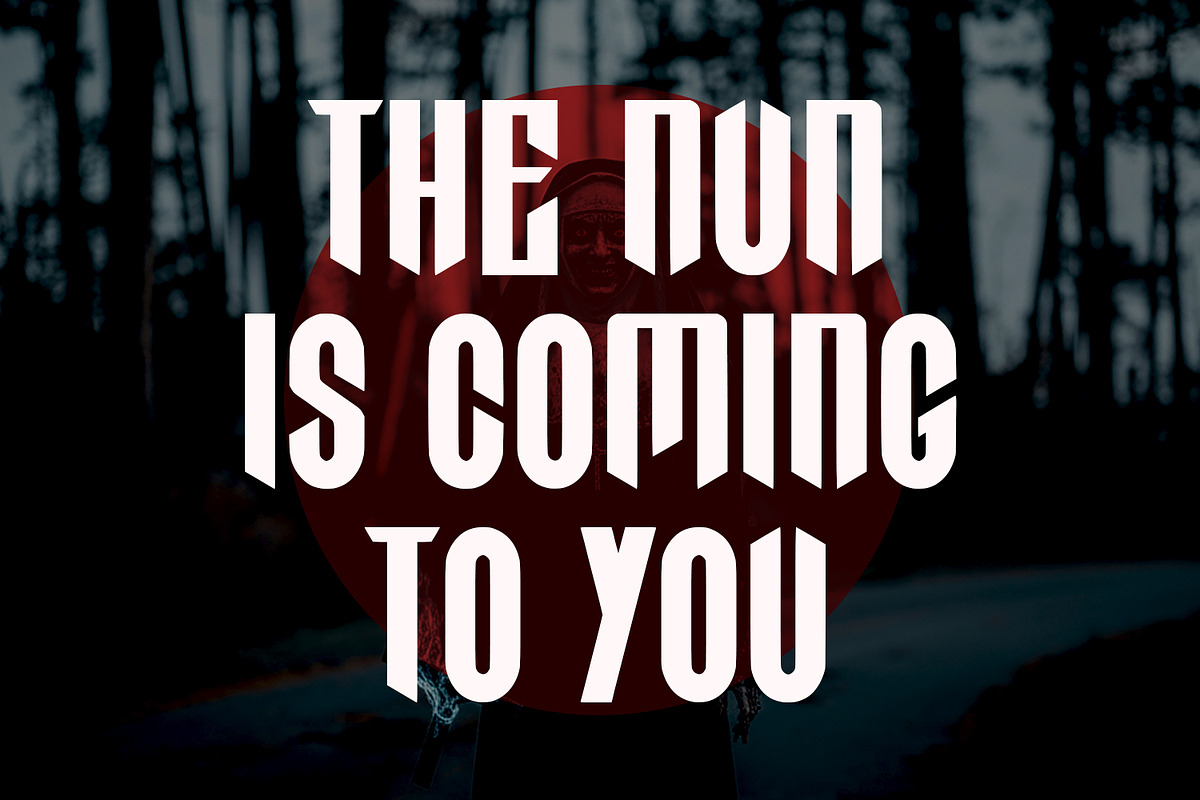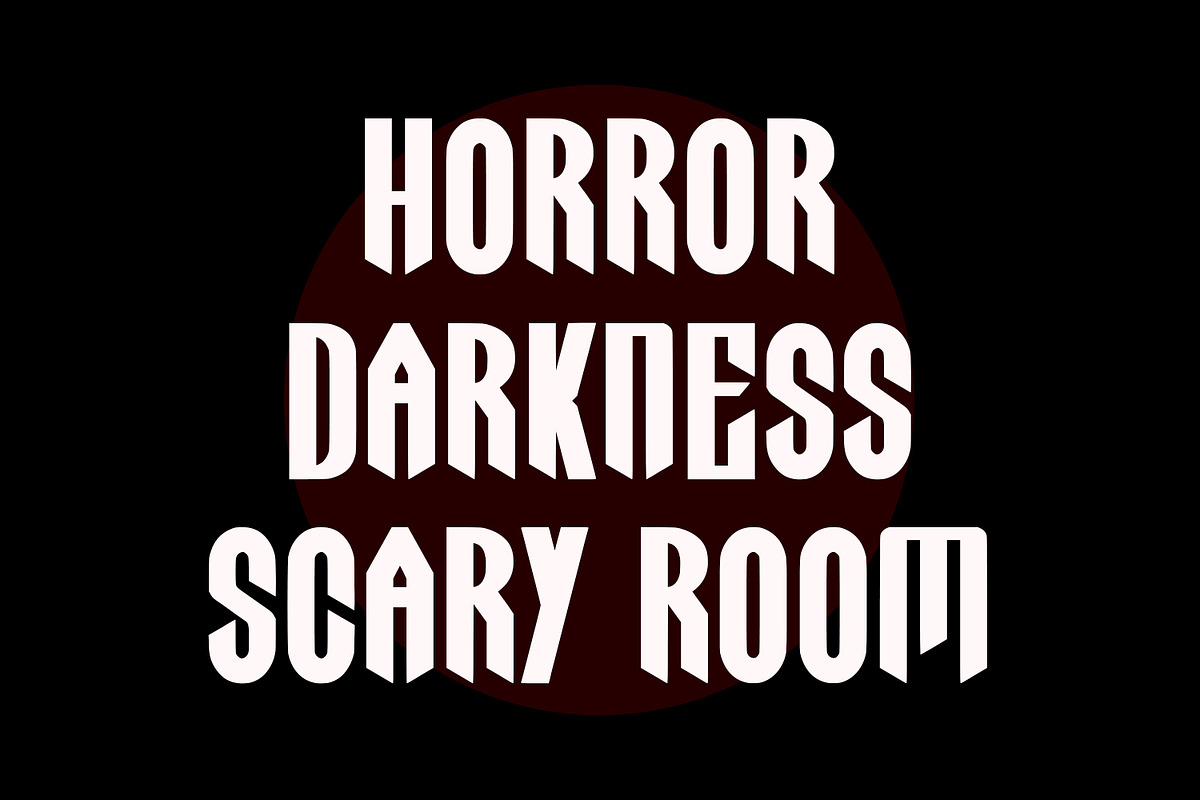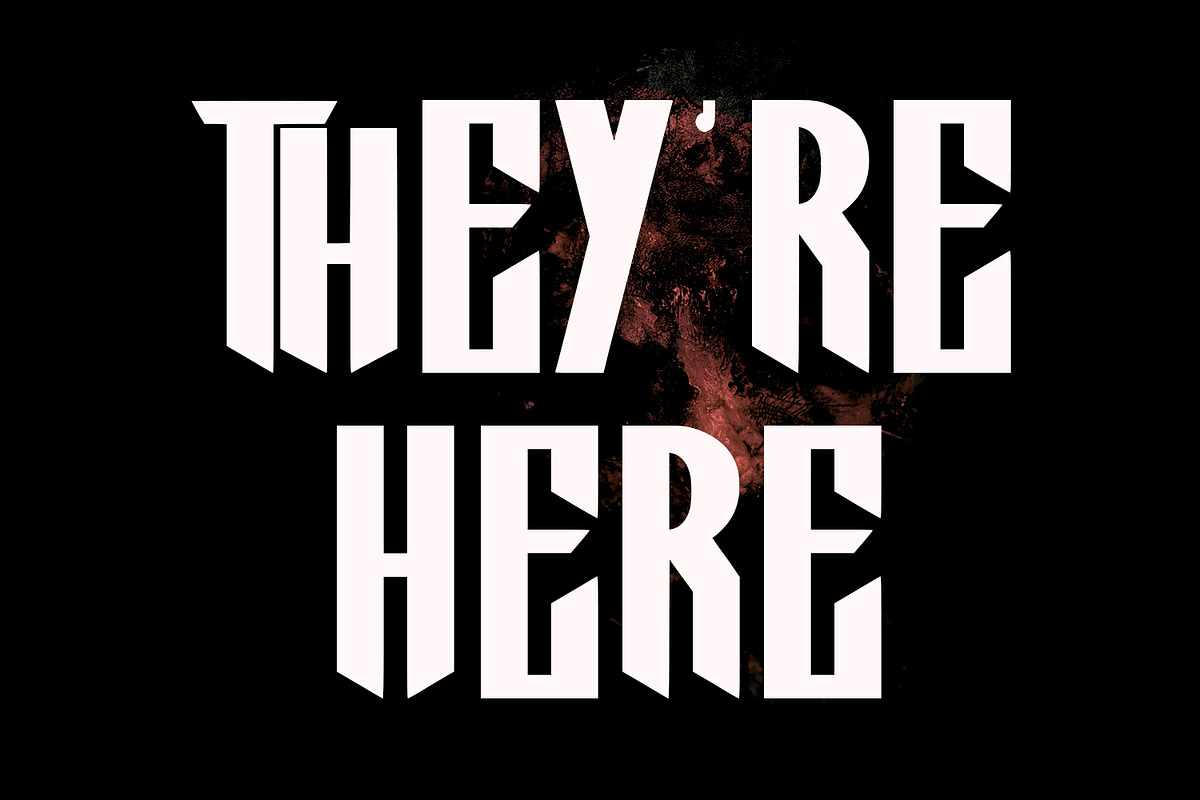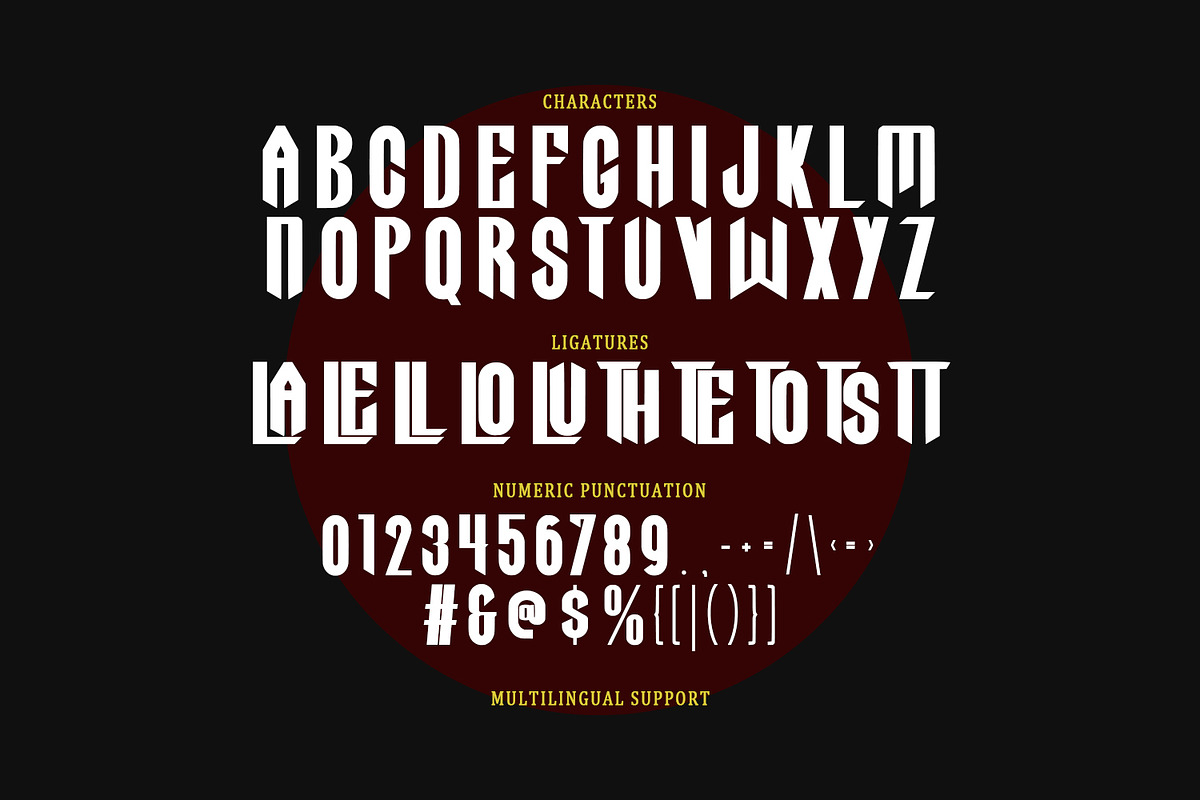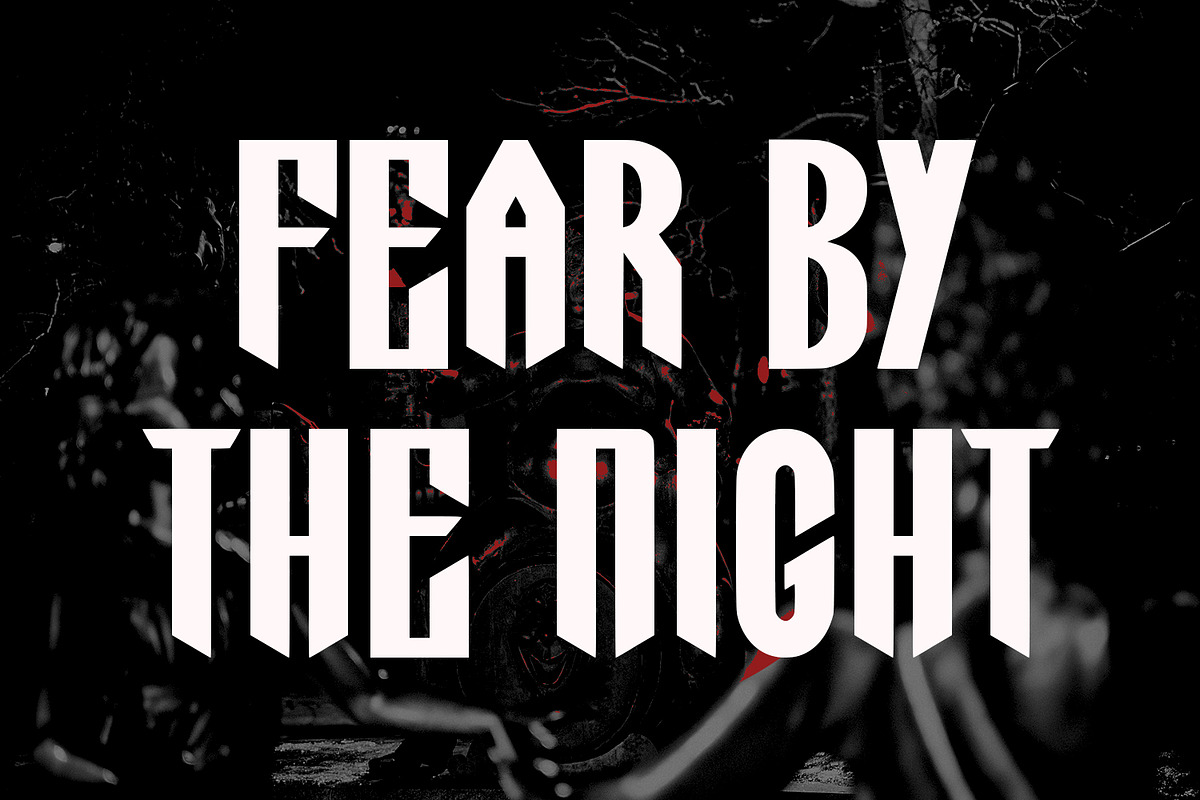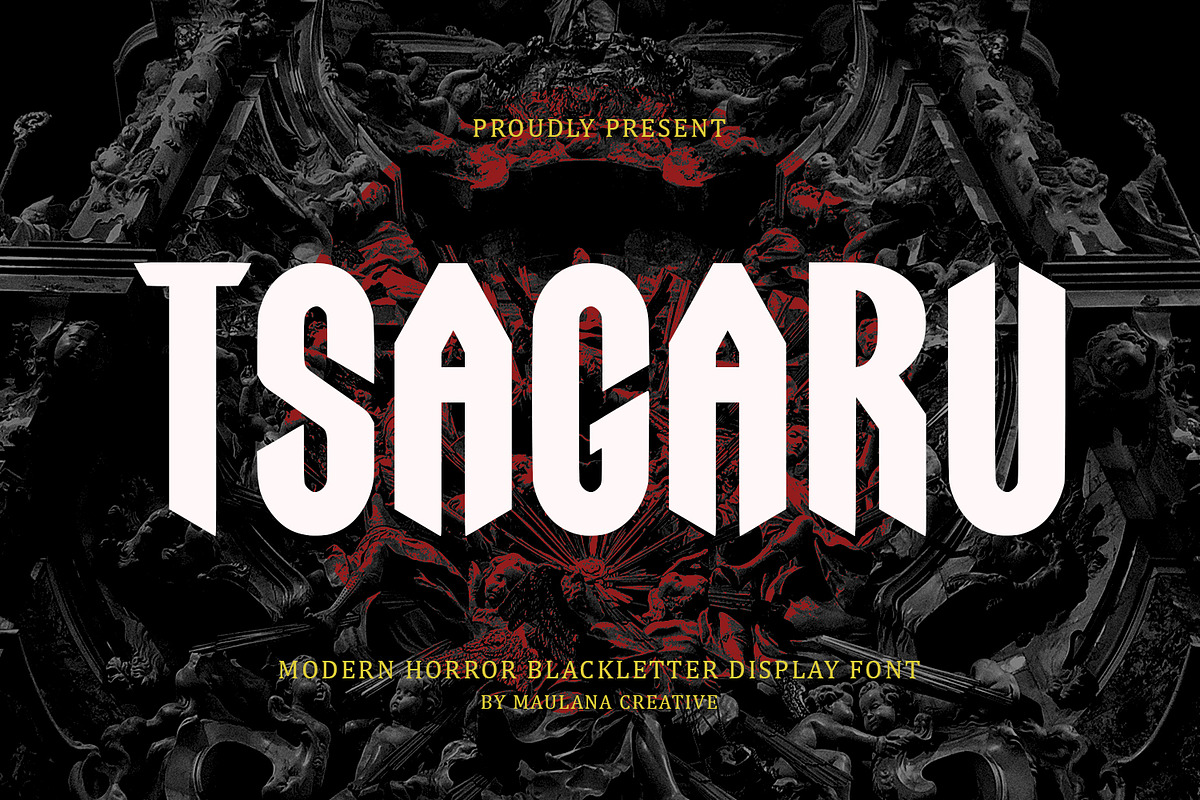
Tsagaru Modern Horror Blackletter
Unleash the darkness with Tsagaru, a spine-chilling blackletter display font designed to bring a hauntingly modern edge to your creative projects. Inspired by classic gothic aesthetics and infused with sharp, aggressive geometric angles, Tsagaru strikes the perfect balance between ancient mystery and contemporary horror.
Every character is meticulously crafted to evoke a sense of dread and power, making it the ultimate choice for horror movie titles, metal band logos, Halloween branding, and occult-themed designs. Whether you're designing a social media for a psychological thriller or a poster for a dark fantasy game, Tsagaru provides a commanding presence that jumps off the page.
- Unique Letterforms: Aggressive, sharp-edged strokes for a terrifying impact.
- Comprehensive Character Set: Includes Uppercase, Numerals, and essential Punctuation.
- Special Ligatures: Custom ligatures for effortless professional layouts.
- Multi-purpose Use: Perfect for social media, and gaming assets.